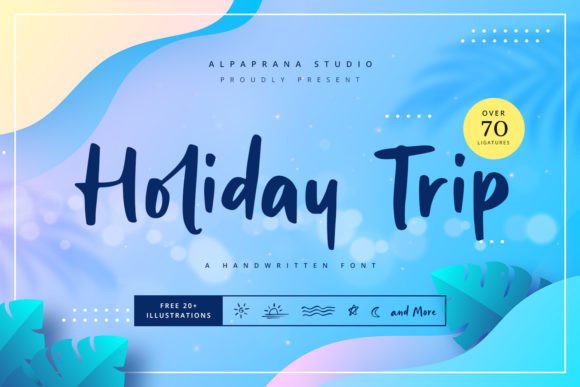
In a world craving authenticity, let Holiday Trip Font ignite your creative spark. This script font, lovingly crafted by alpapranastudio, is a testament to the beauty of handwritten artistry. With its playful and authentic flair, Holiday Trip invites you on a captivating journey of self-expression.
Unleash your imagination and explore endless possibilities. Holiday Trip's organic flow and graceful curves lend a touch of elegance to any design project, making it the perfect choice for branding, logo creation, and lettering. Its versatility shines through, whether you're designing clothing, posters, magazines, packaging, or posters.
Step into a world where your designs come alive. Picture your brand's logo adorned with Holiday Trip's enchanting strokes, leaving a lasting impression that captivates and inspires. Create lettering that dances off the page, conveying a message that resonates with authenticity and charm. Let Holiday Trip be your muse as you design shopping bags that embody elegance, t-shirts that speak volumes, and book covers that beckon readers with a sense of intrigue.
Immerse yourself in the limitless possibilities of Holiday Trip. Its playful nature lends itself effortlessly to photography, adding a touch of whimsy and joy to your captures. Special events take on a new life when adorned with Holiday Trip's enchanting allure, transforming ordinary moments into extraordinary memories.